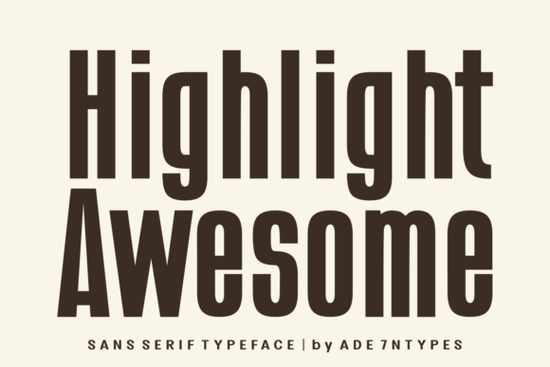
Finding the right typeface for a new project often comes down to balancing readability with visual impact. If you need a tall, sleek option that works well across both digital and physical products, the Highlight Awesome Font is a strong candidate. Designed as a modern option within the sans-serif category, it features narrow characters and strongly condensed strokes. This makes it highly practical for designers, print-on-demand sellers, and crafters looking for a bold display style that still feels sophisticated and clean.
What makes a tall sans-serif font work for print-on-demand?
When creating merchandise like T-shirts, posters, or mugs, space is often limited. A condensed display font solves this problem by allowing you to use larger text without taking up too much horizontal room. The clean lines of this typeface ensure that your messages remain legible even from a distance. Because the design relies on a strict layout, it naturally creates a uniform, blocky aesthetic that catches the eye on retail shelves.
When printing on curved surfaces like coffee mugs or water bottles, wide fonts can distort or wrap awkwardly. A narrow, vertical design fits perfectly within the printable area, keeping your logo or slogan intact. Whether you are printing a short quote on a tote bag or designing a complex product label, the minimalist structure keeps the focus on your words. You can see how this approach compares to other modern typography choices when you browse similar options like this sleek sans-serif collection.
How do you use this typeface for branding and packaging?
Small businesses and marketing professionals need typography that communicates clearly without unnecessary clutter. The narrow, strong profile of this font makes it an excellent choice for fashion branding, editorial content, and film titles. When laying out a magazine spread or designing packaging, you want the text to complement the imagery rather than compete with it.
The minimalist design adds a touch of sophistication to product labels and banner designs. It works exceptionally well for high-end cosmetic packaging or modern streetwear labels where a bold, assertive voice is needed. If your current brand identity relies on heavier, wider letterforms, pairing them with a more condensed option can create a nice visual contrast. For example, mixing it with another versatile typeface from this modern sans-serif family can give your brand guidelines more flexibility across different mediums.
Is this font compatible with Cricut and Silhouette?
Yes, this typeface is built with crafters and hobbyists in mind. It is PUA Encoded, which means every character and glyph is fully accessible without needing expensive or special design software. If you use standard text editors or basic typography tools, you can still access the specific characters you need for your projects.
This is especially useful for users of Cricut Design Space, Silhouette Studio, or those working with sublimation printers. You can easily copy and paste individual letters into your cutting software. Furthermore, the strongly condensed strokes provide enough thickness to make weeding vinyl decals manageable. Thin, intricate script fonts often tear during the weeding process, but a bold, structured display font holds its shape well on adhesive vinyl and heat transfer materials.
- Capitalize your text: Turn on the All Caps feature in your design software to maintain the intended bold, uniform look across all your layouts.
- Adjust the tracking: Modify the letter spacing slightly tighter for large film titles to create a solid block of text, or wider for small product labels to improve readability.